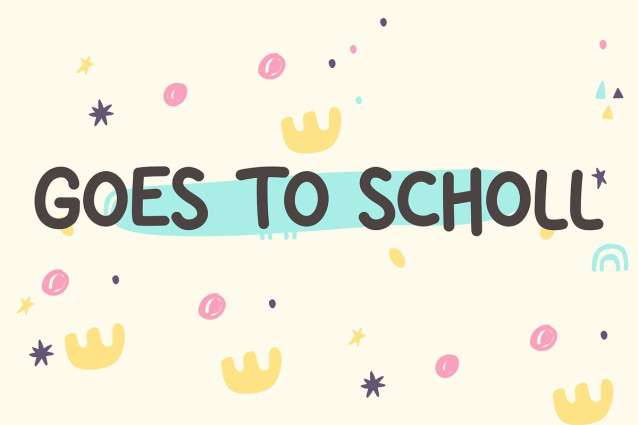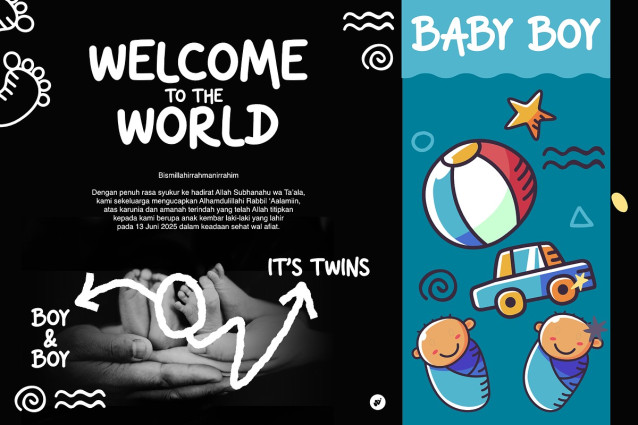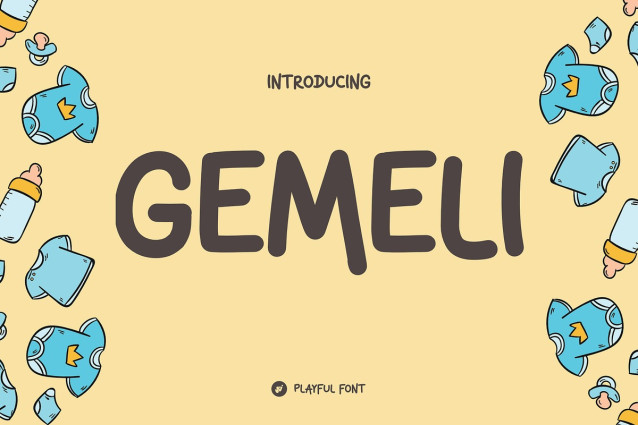
Gemeli Playful Font
Gemeli Playful Font – A sticky handwrite font—a playful, handwritten style that often looks bubbly, soft, or even slightly “melty”—is great for designs that want to feel fun, personal, and informal.